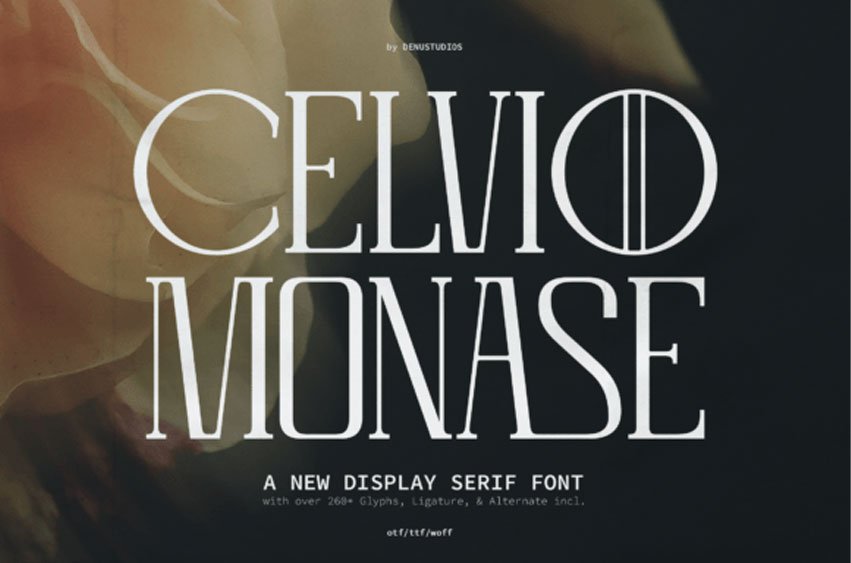
Celvio Monase Font is a striking display serif font that exudes sophistication and modern elegance. Its tall, thin letterforms, combined with unique geometric details and alternates, make it perfect for high-end branding, editorial designs, luxurious packaging, and logos.
With over 260 glyphs, ligatures, and alternates included, this font brings a sense of refinement and style to any project.